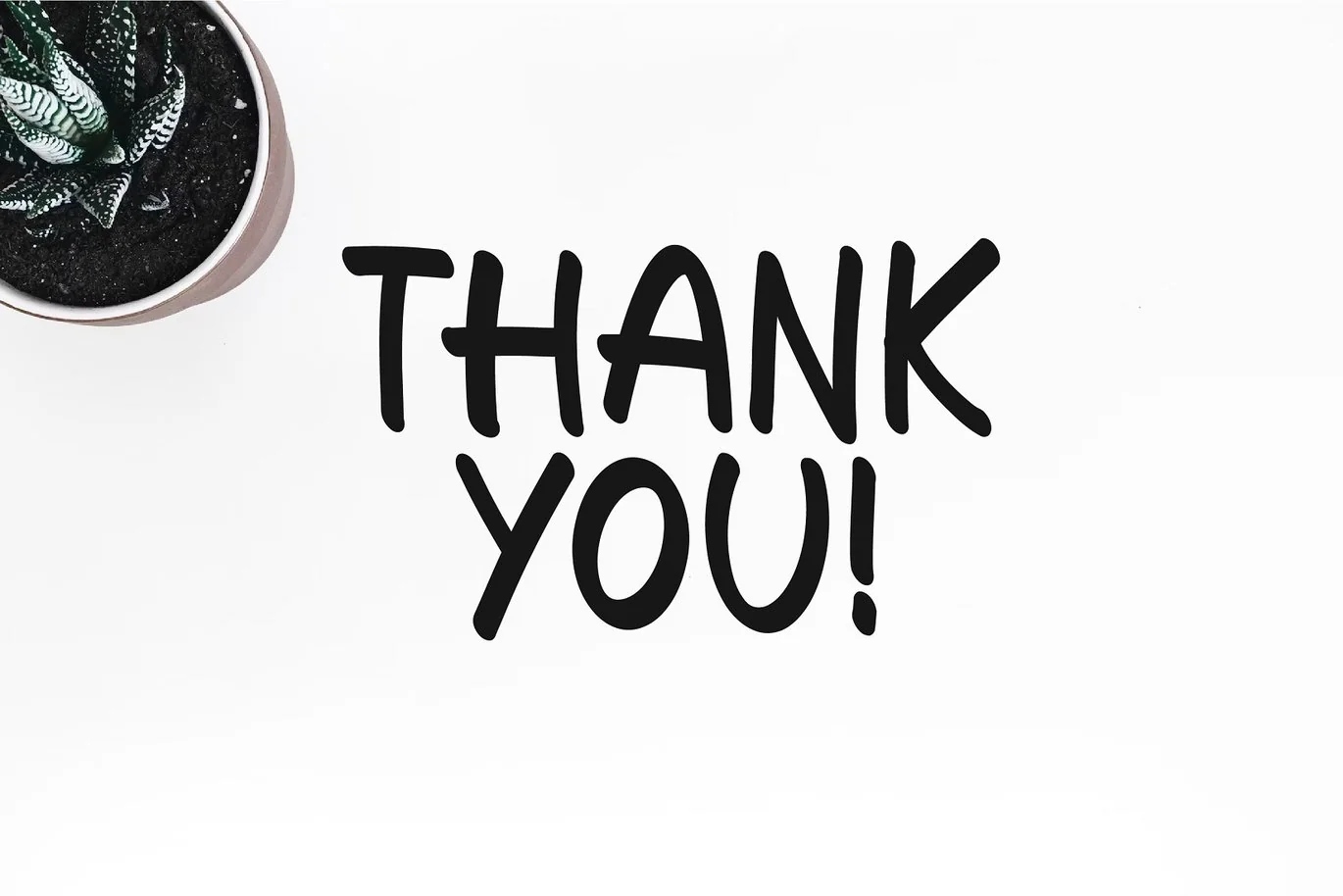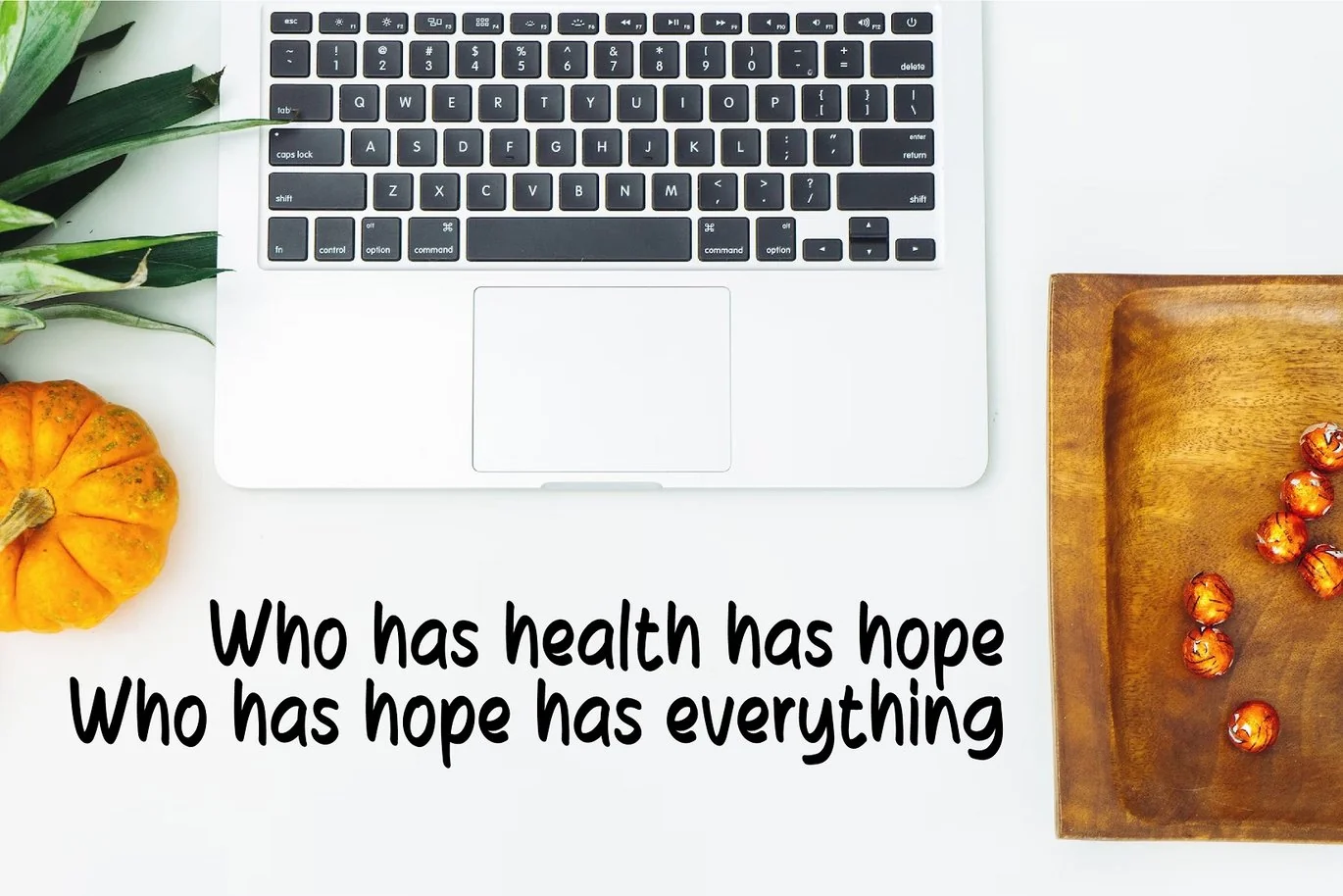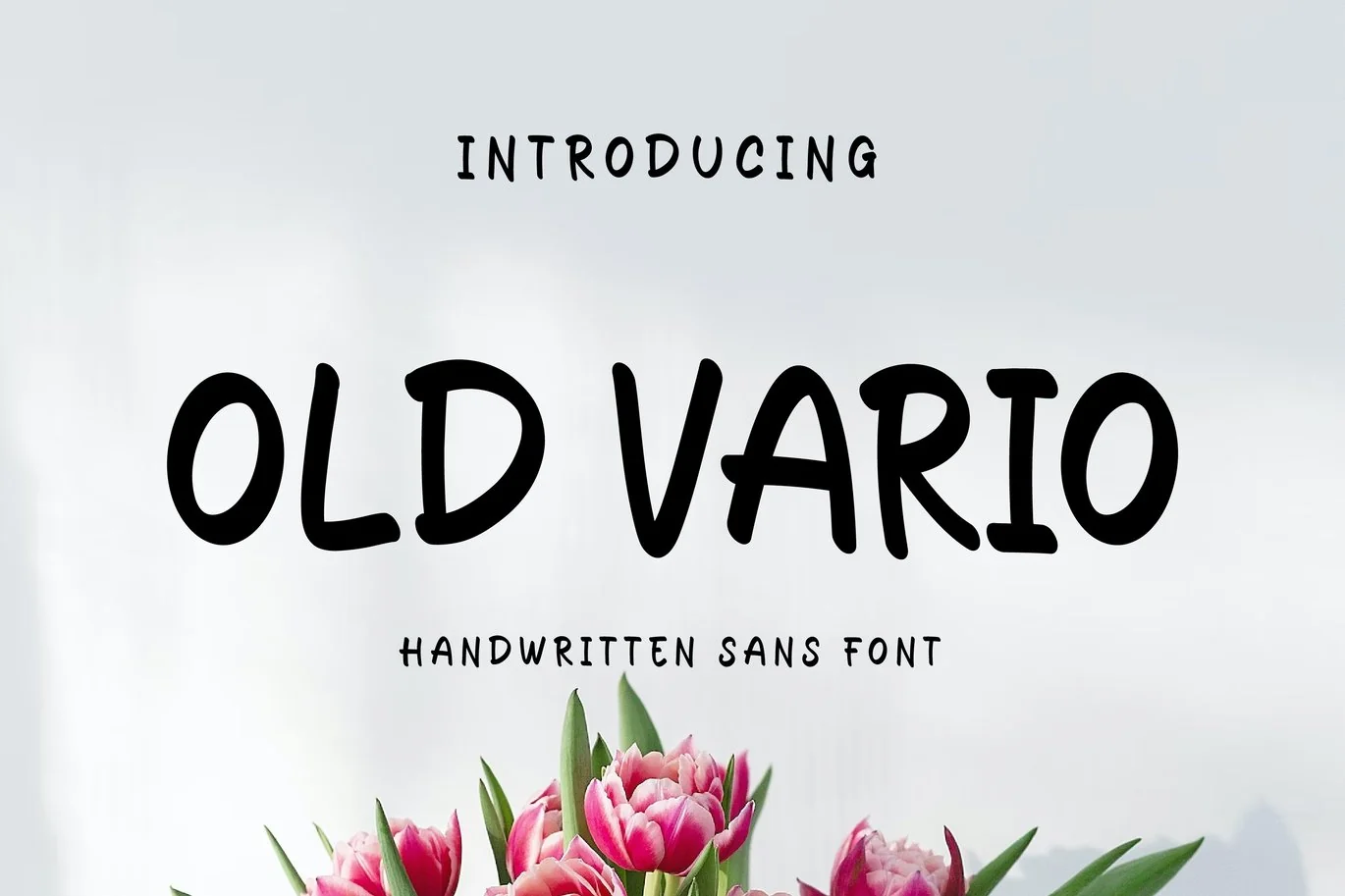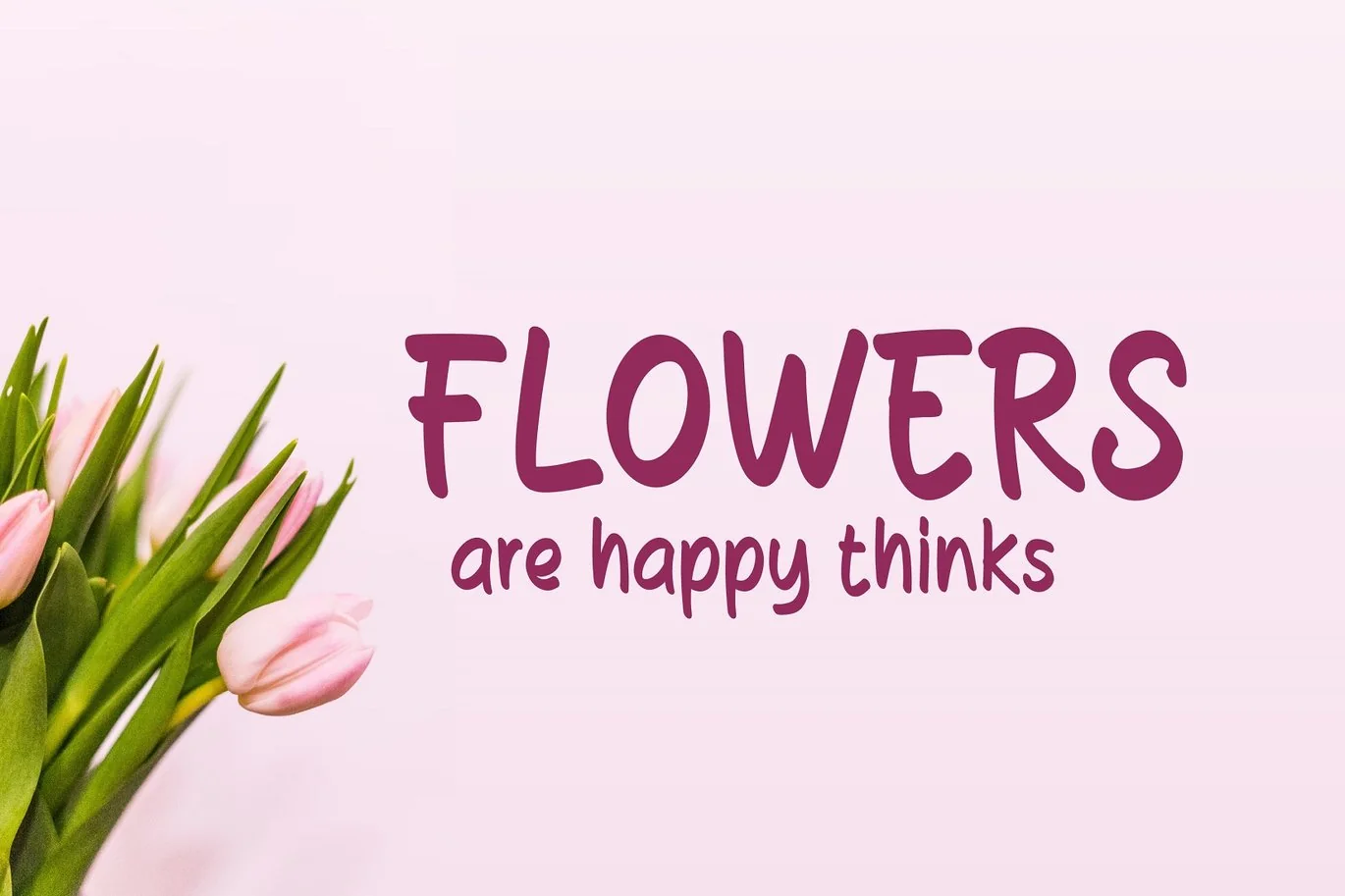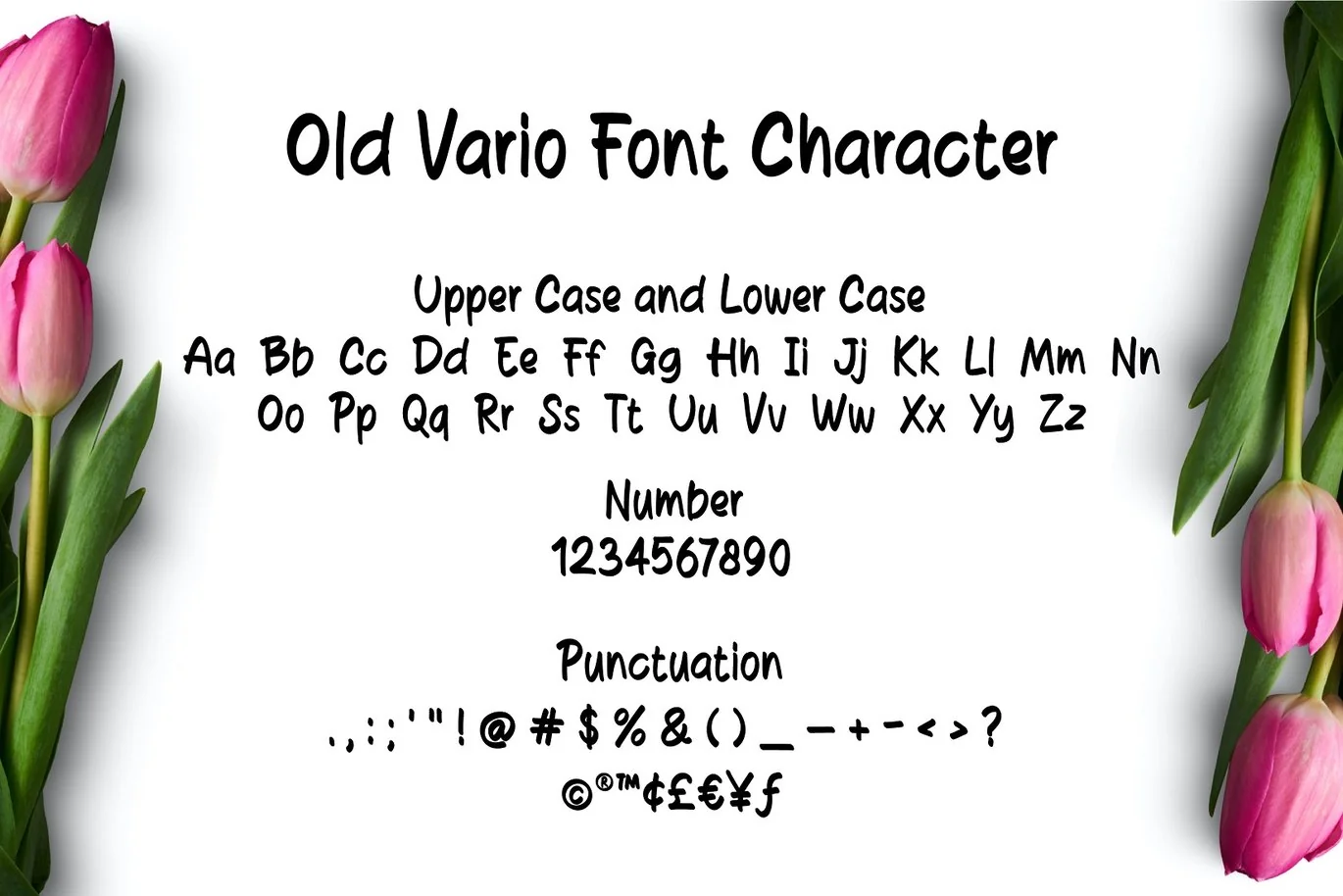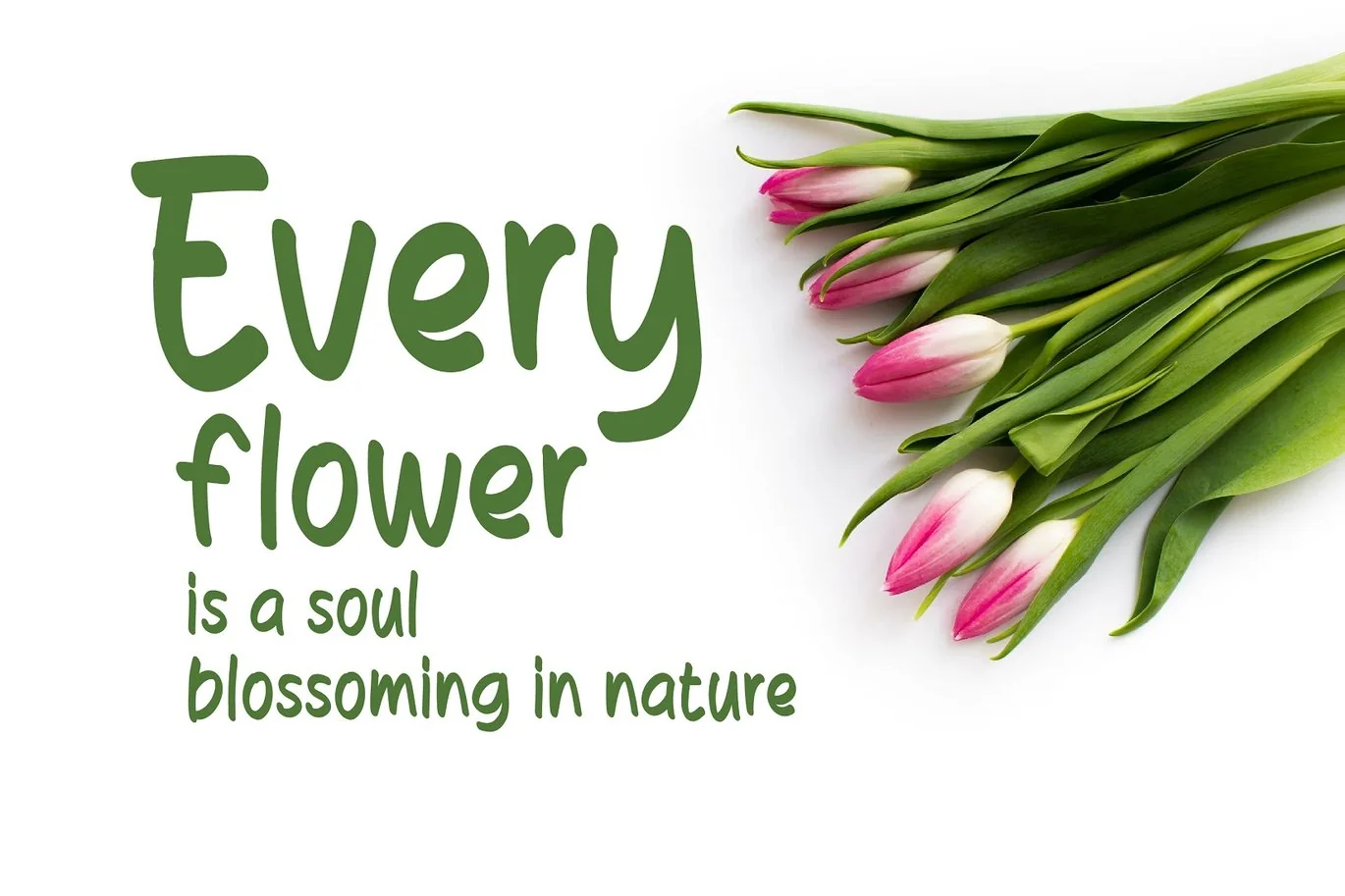
Old Vario Sans Handwritten Font
Introducing Old Vario – Sans Handwritten Font
Old Vario is a Sans Handwritten font. Perfect for branding projects, logo, wedding designs, social media posts, advertisements, product packaging, product designs, label, photography, watermark, invitation, stationery and any projects that need handwriting taste.